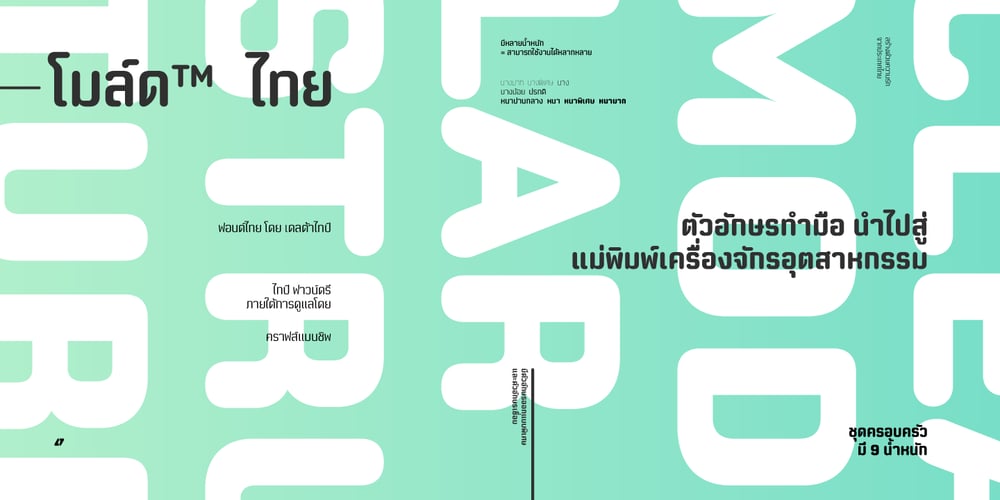
Moldr Thai Font Family was designed by Kwanchai Akkaratammagul, Chaiyong Nateparit and published by Deltatype. Moldr Thai contains 9 styles and family package options. Moldr Thai, a sans-serif with modular grid structure with Thai script, inspired from handmade letter to industrial machine mold, Moldr come with 9 weights in complete family, Support many language with standard Adobe Lain 4 glyphs, world-ready and mark2mark support, especially Thai script.